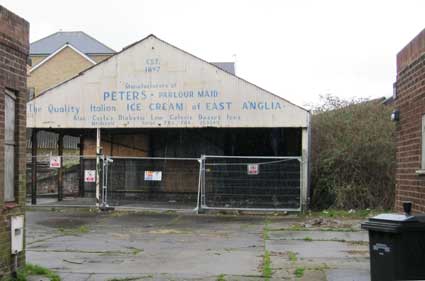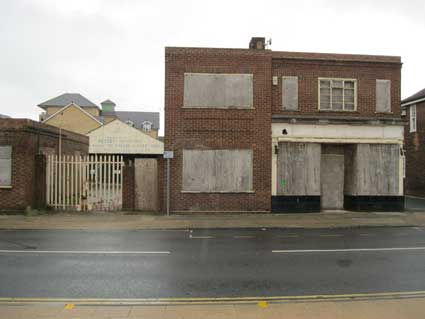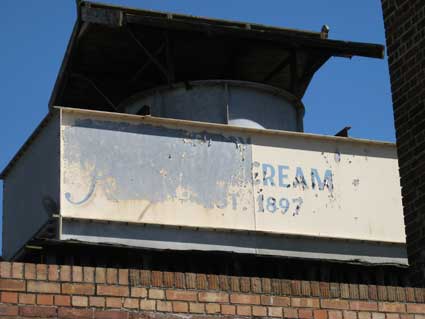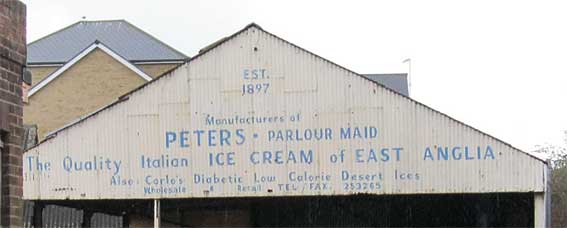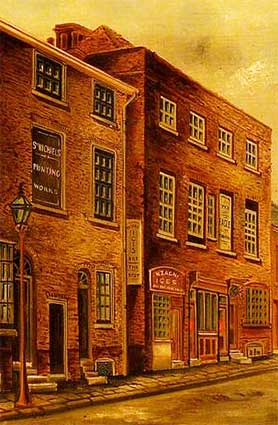
Rear of 52-54(?) Grimwade Street
A rather blighted area between Grimwade Street and Star Lane
(not counting 'Transport House': the UNITE Union offices on the corner)
contains the former Portia Engineering works which specialised in
wrought iron gates and the old Peter's Ice Cream shop and works.
The former Peter's Ice Cream shop at 52-58 Grimwade Street in
rectliniear 1930s style, boarded up for many years. The strip above the
shop door used to display the letters: 'PETERS'.
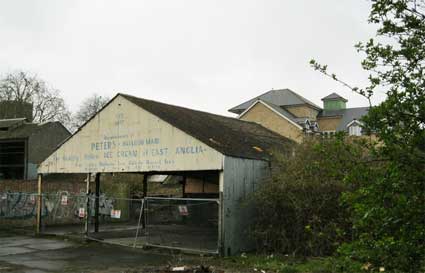
A view over the fencing at the side. From left: tower of St Clement's
Church, Portia Engineering building, in the background flats built
behind The Foyer on Star Lane. The single span structure is in a sorry
state, but still bears the lettering:
'EST.
1897
Manufacturers of
PETERS . PARLOUR MAID
The Quality Italian ICE CREAM of EAST ANGLIA
Also Carlo's Diabetic Low Calorie Desert Ices
Wholesale Retail
TEL/FAX. 253265'
The Zagni family (present-day descendant, Dominic Zagni – who
has contributed to the website, tells us that the name is pronounced
'Zah-nee') from Modena in Italy arrived in Ipswich, en route for America; they never
left for that leg of their migration. Peter's Ice Cream was founded in
1897 by Maria and Napoleone
Zagni in the kitchen of a house in Rope Walk. The company is still
operating, but now based at Holly Lodge, London Road (and thence to
Needham Market in 2002). These buildings
and land in Grimwade Street were sold
in 2012. The story of ice cream manufacture here is
one of the, perhaps unlikey, trades to emerge from the large area of
poor housing in the Rope Walk area known as 'The Potteries' in the
later 19th century. The story is told in Grace, F.: Rags & bones (see Reading List).
From the car park beside the UNITE office (Transport
House) next door we see:
with the cursive 'Peter's' plus the word 'ICE' all but weathered
away; 'EST. 1897'
[UPDATE summer 2013: the
Peter's site is being worked on and it remains to be seen what will
happen to the lettered structures.]
[UPDATE 21.12.2013: A
watercolour of Upper Orwell Street by W.J. Leggett (1856-1936)
– see Links under the 'Painted wall signs'
heading – features The
Eagle public house (the taller building which still bears the 'Palmer's
Door
Mats' sign shown on the Martin &
Newby
page with 'The Eagle' itself signed on a blank window on the first
floor). To the left of the pub entrance is a shop bearing the sign:
'N. ZAGNI
ICES'
John Bulow-Osborne writes: "The large building ... was then
partly occupied by Signor Zagni, who made and sold ice cream. He
later moved his business just around the corner to Grimwade Street,
where its derelict premises may still be seen, as 'Peter's Ice Cream'.]
[UPDATE
the site soon. I am related to Napoleon Zagni – my Grandfather was his
brother – and he came over to the UK with them and was called Benigo,
but he was known as Ben to his customers. He owned a general store at
99 Fore
Hamlet, approximately where the car rental Enterprise office is. He was
also apparently the hot chestnut man on the Cornhill maybe before
Lloyd's avenue was cut through in the early 1930s? This
is a picture of him with his wife Emily Maud Zagni whose father was the
steward of the E.A.D.T. social club in Little Colman Street. Sadly, my
Dad passed away in 2017 aged 87 and he was the last of the generation
that included Carlo. Kind